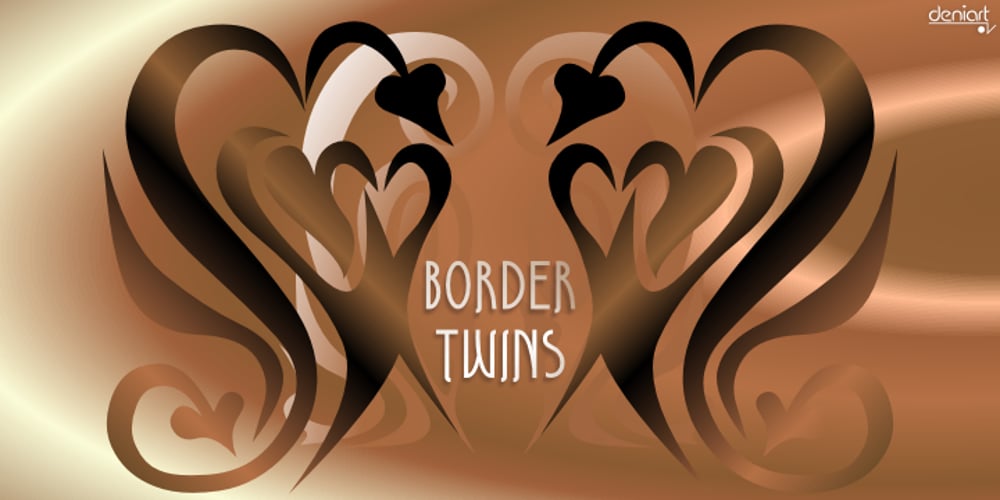
Border Twins
Border Twins font
Border Twins Font Family was designed by Denise Koehler and published by Deniart Systems. Border Twins contains 1 styles and family package options. Add flair to your designs with border-twins! The BorderTwins typeface offers a unique assortment of border elements – great for any project requiring decorative accents. The twin pairs can be used in repeated patterns on their own, paired with other complimentary twins or simply to surround your text with charms. The combination possibilities are endless so we’ve included a PDF guide showing many of the pairing options. Have fun and experiment to create your own unique designs!